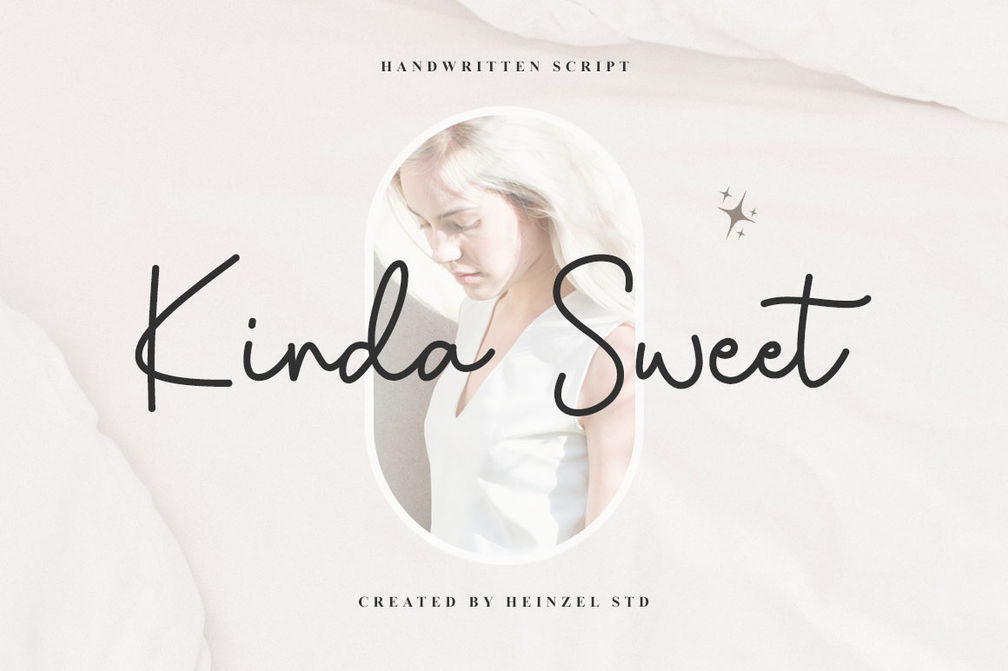
Kinda Sweet Handwritten Font
Kinda Sweet is a flowing handwritten font, described by an elegant touch, perfect for your favorite projects. It looks stunning on wedding invitations, thank you cards, quotes, greeting cards, logos, business cards and every other design which needs a handwritten touch. Fall in love with its incredibly distinct and timeless style and use it to create spectacular designs!
Kinda Sweet Features :
- Uppercase and Lowercase
- Numerical and Punctuation
- Multilingual Languange :
This character set supports the following 21 languages : Afrikaans, Basque, Breton, Catalan, Danish, Dutch, English, Finnish, French, Gaelic (Irish, Scots), German, Icelandic, Indonesian, Irish, Italian, Norwegian, Portuguese, Saami (Southern), Spanish, Swahili, Swedish.